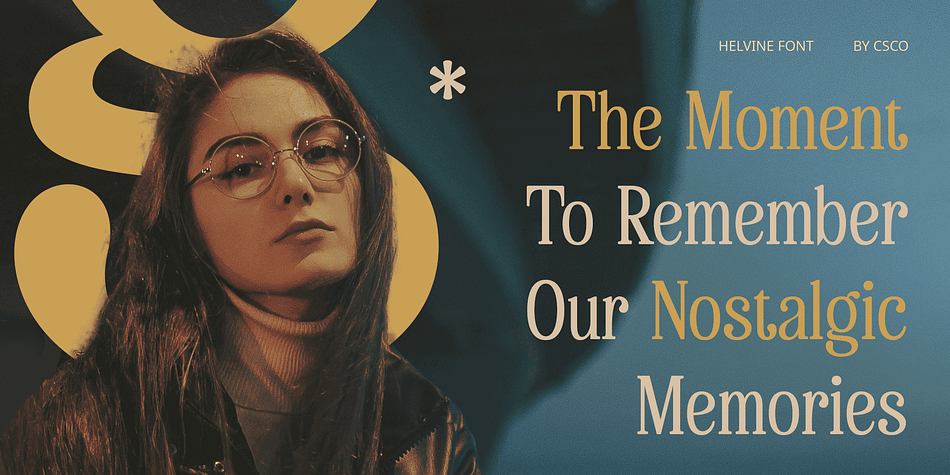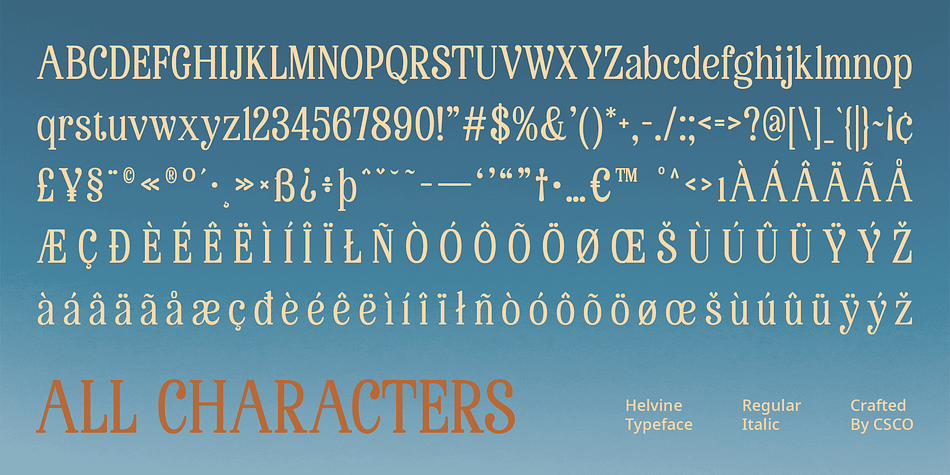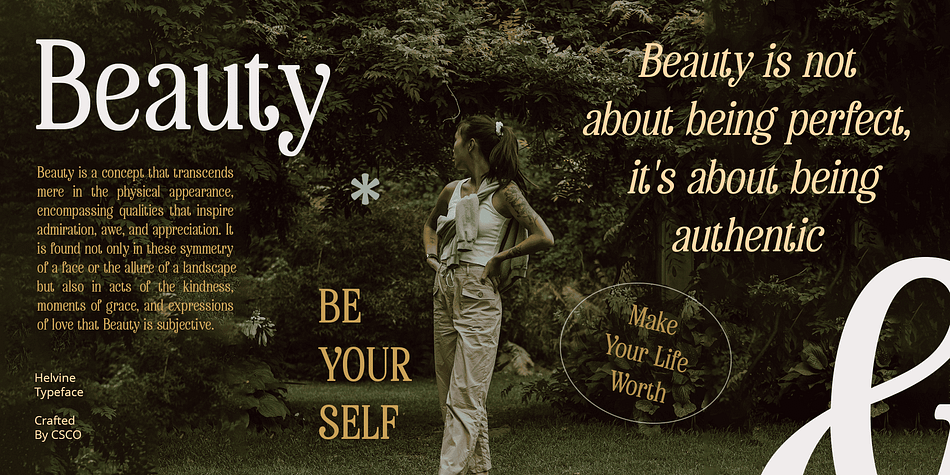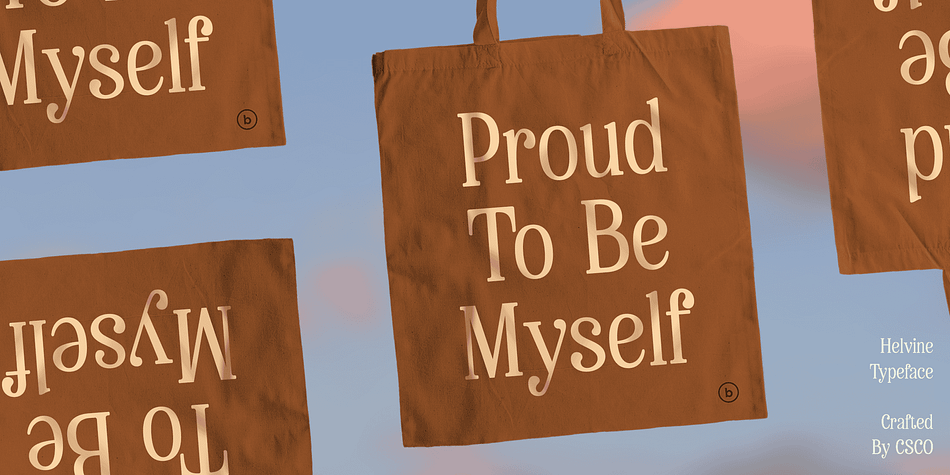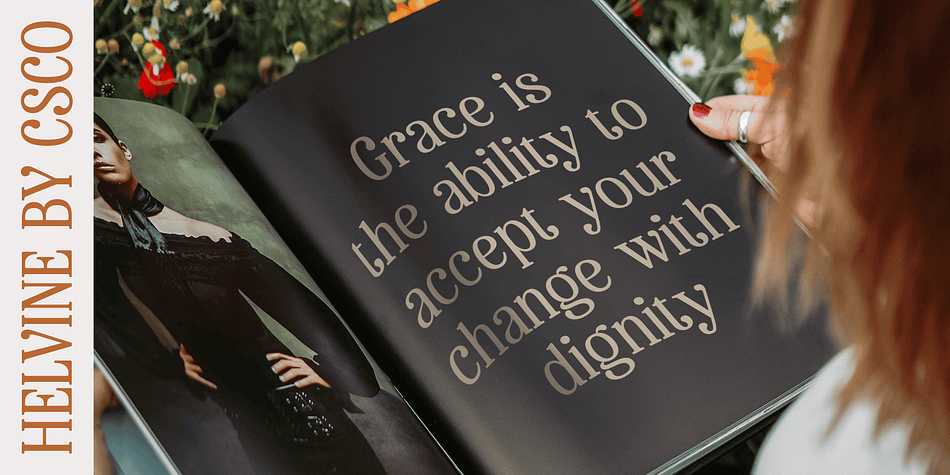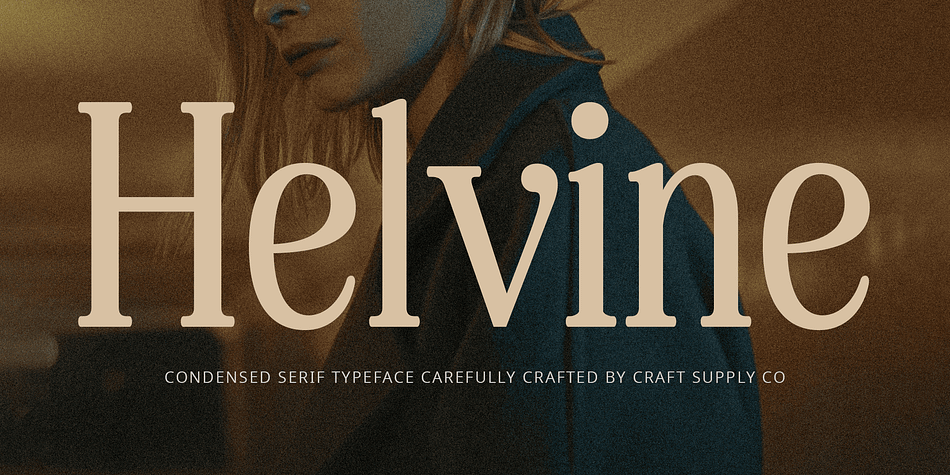
Helvine
Helvine is a serif font family. This typeface has two styles and was published by Craft Supply Co.
Helvine: Where Elegance Meets Professionalism
Elegant Condensed Serif Font
Helvine is a condensed serif font that combines elegance with a refined, professional style. Perfect for corporate and organizational use, this font adds a sophisticated and polished touch to your designs.
Elegant Form with a Condensed Design
With its graceful lines and condensed structure, Helvine offers a stylish and impactful take on traditional serif fonts. The elegant form creates a polished and professional look, ideal for corporate branding, presentations, and other projects that need a touch of sophistication.
Perfect for Corporate Displays
Whether you’re designing a corporate report or creating a sleek business logo, Helvine is sure to make an impression. Its elegant design and professional appeal make it perfect for displays that demand clarity and convey a sense of modern refinement.
Versatile and Easy to Use
Despite its refined appearance, Helvine is versatile and easy to use. The font works well in both large and small sizes, making it suitable for a variety of applications, from headlines and banners to body text and more. With its blend of elegant design and condensed form, Helvine adds a captivating and professional touch to any design.